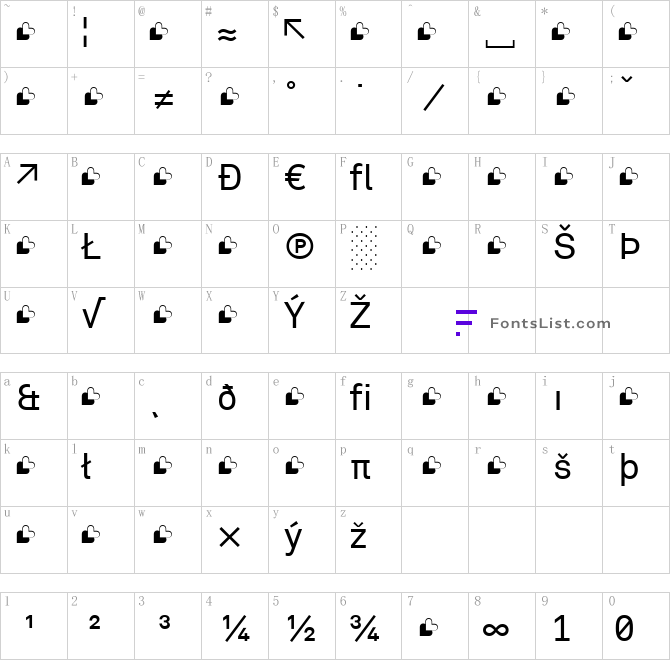
- Font Name:Akkurat-Extra
- Subfamily:LaurenzBrunner.www.lineto.com: Akkurat-Extra: 2004
- Full Name:Akkurat-Extra
- PostScript:Akkurat-Extra
Akkurat-Extra.ttf is a very beautiful artistic font, Akkurat-Extra.ttf is widely used in the design and printing of various books and pictures,Akkurat-Extra.ttf has a strong visual impact,Akkurat-Extra.ttf is a commonly used font in newspapers, magazines and books, and is used in posters, e-commerce Poster design, store design, logo design, font design and other fields.Akkurat-Extra.